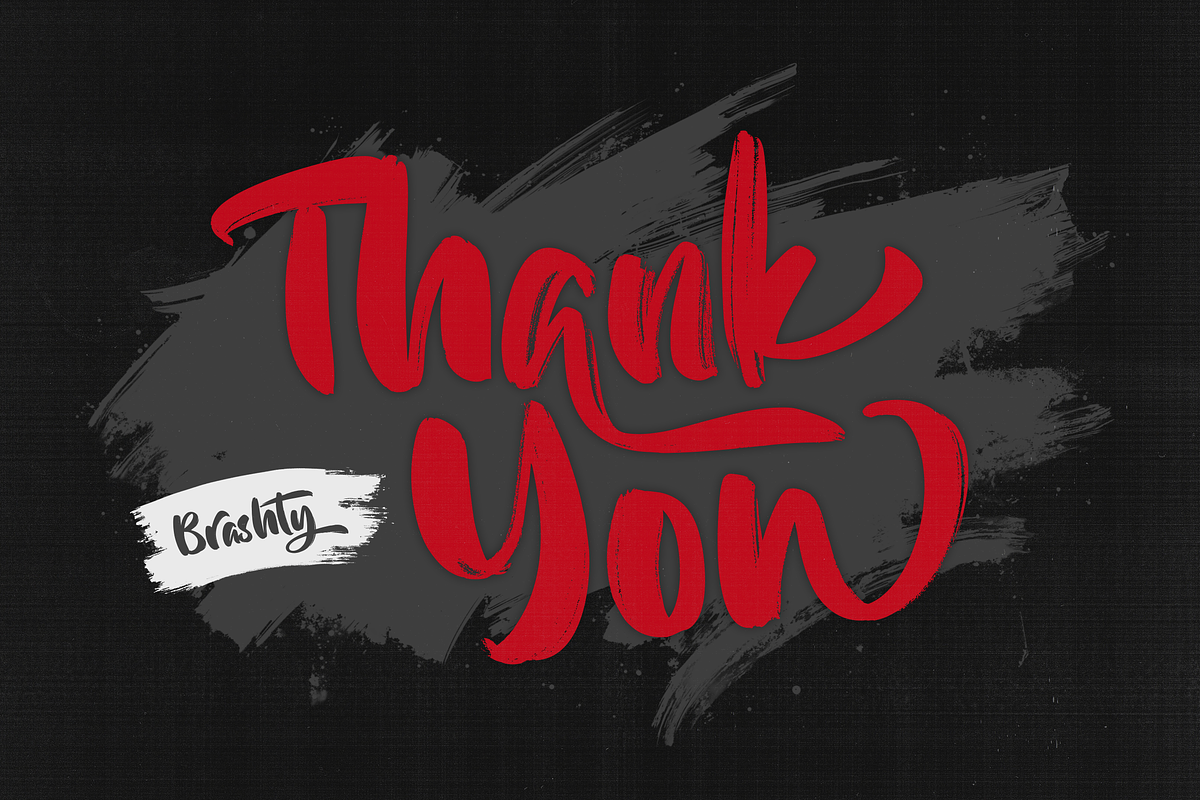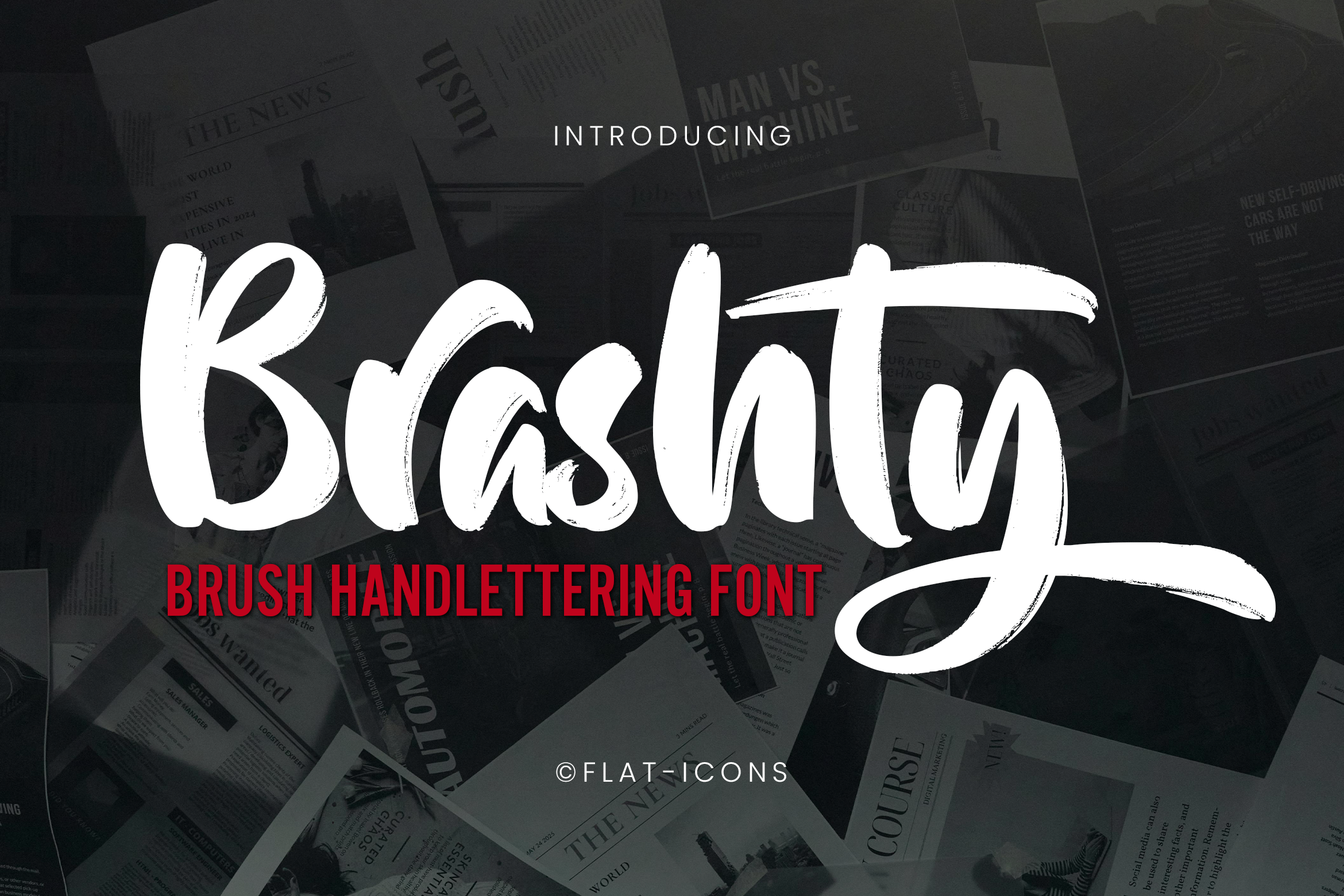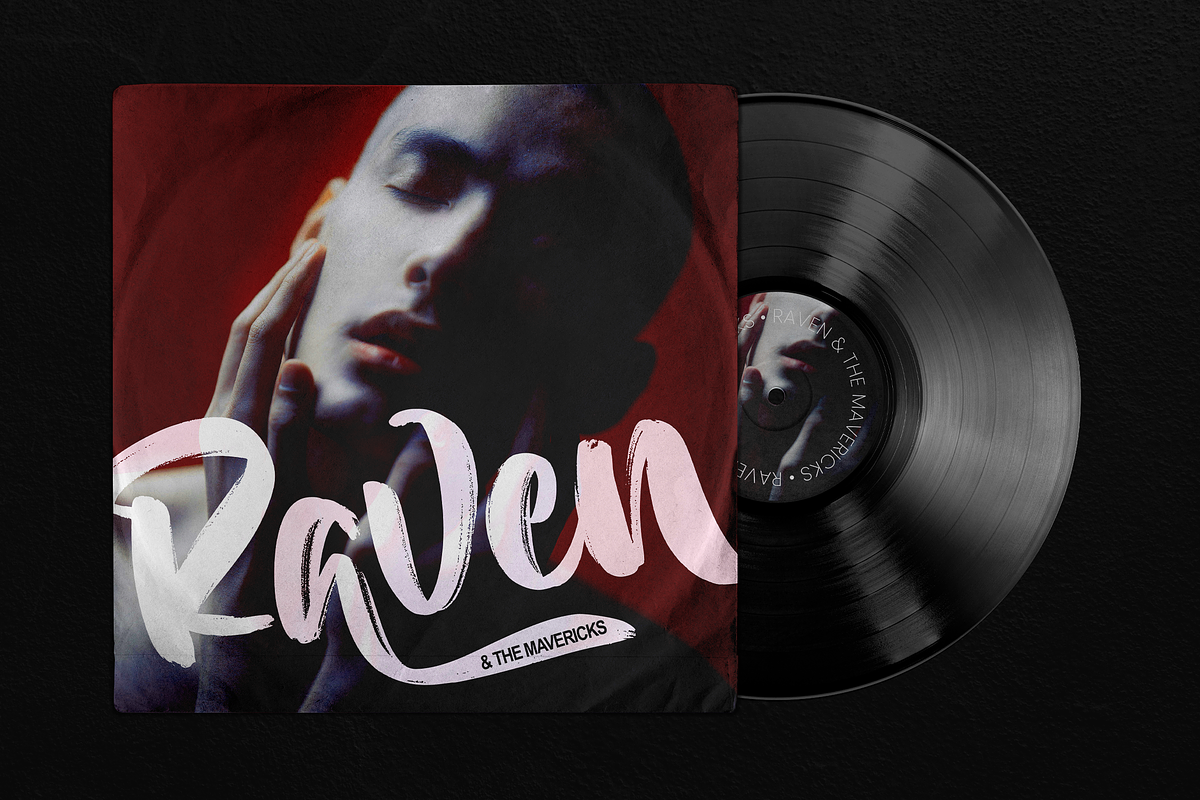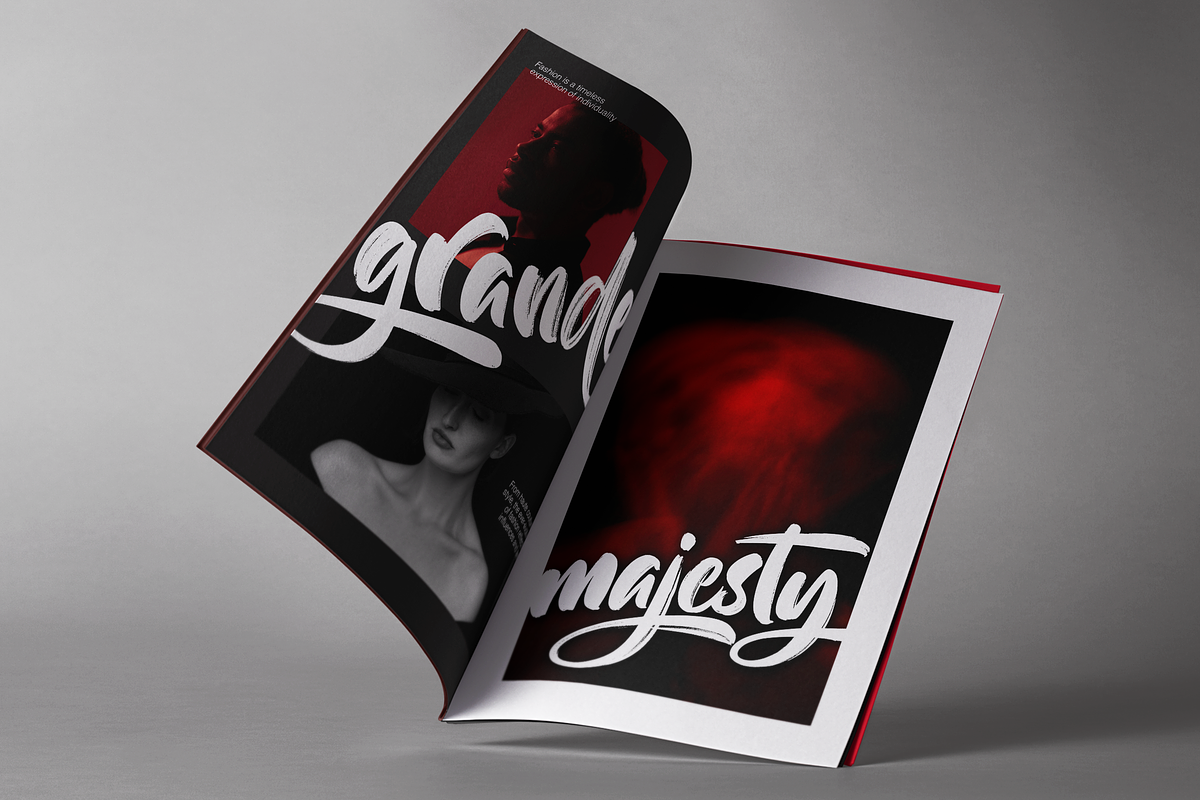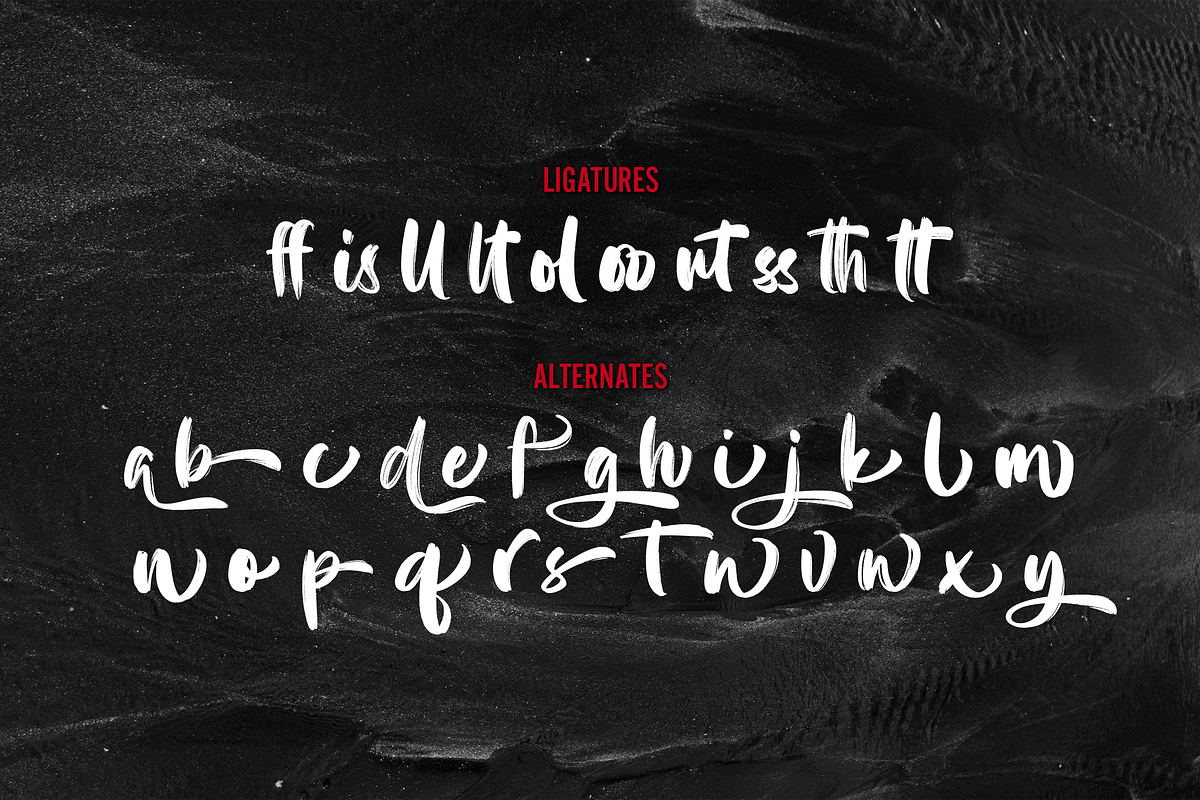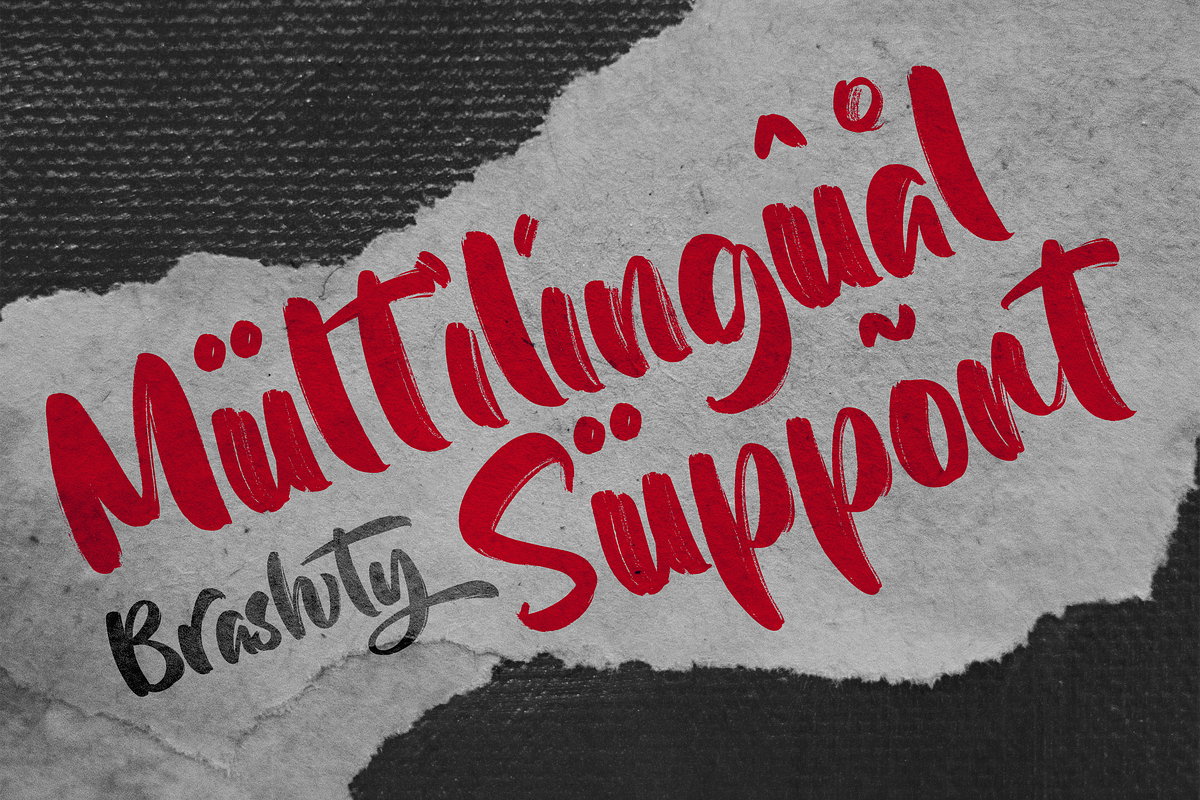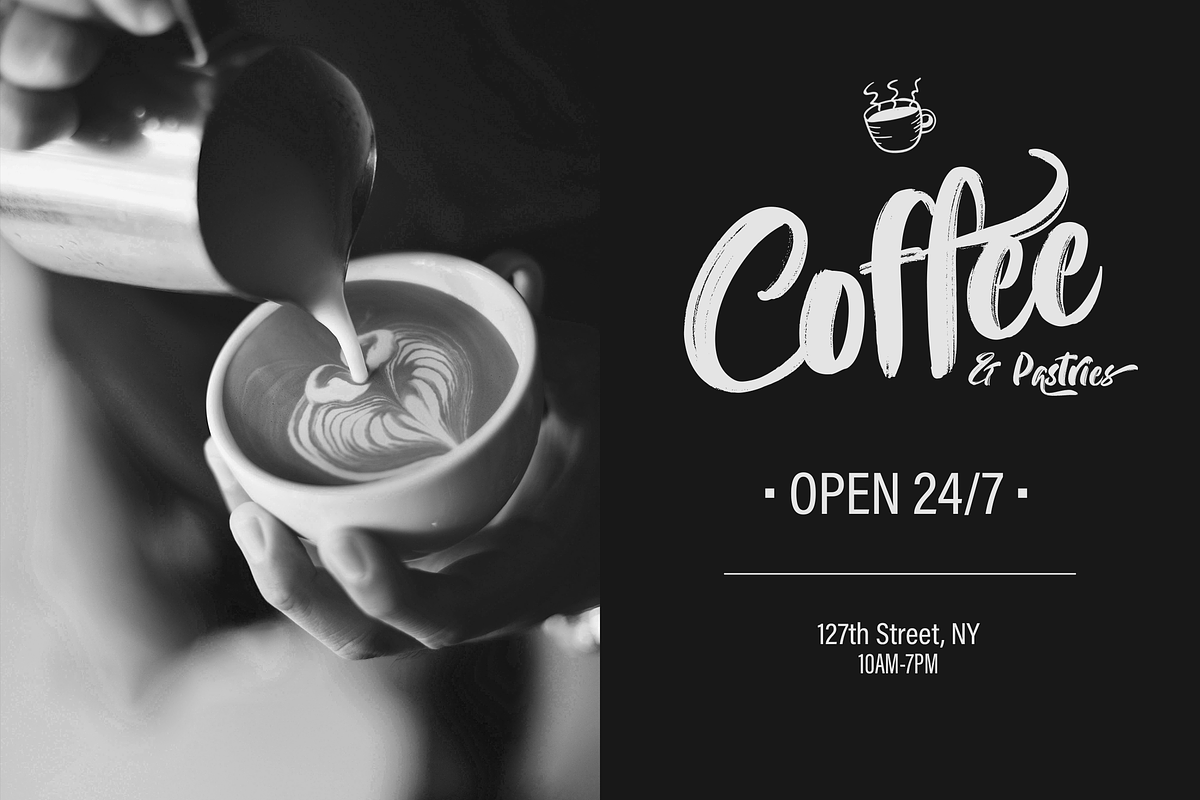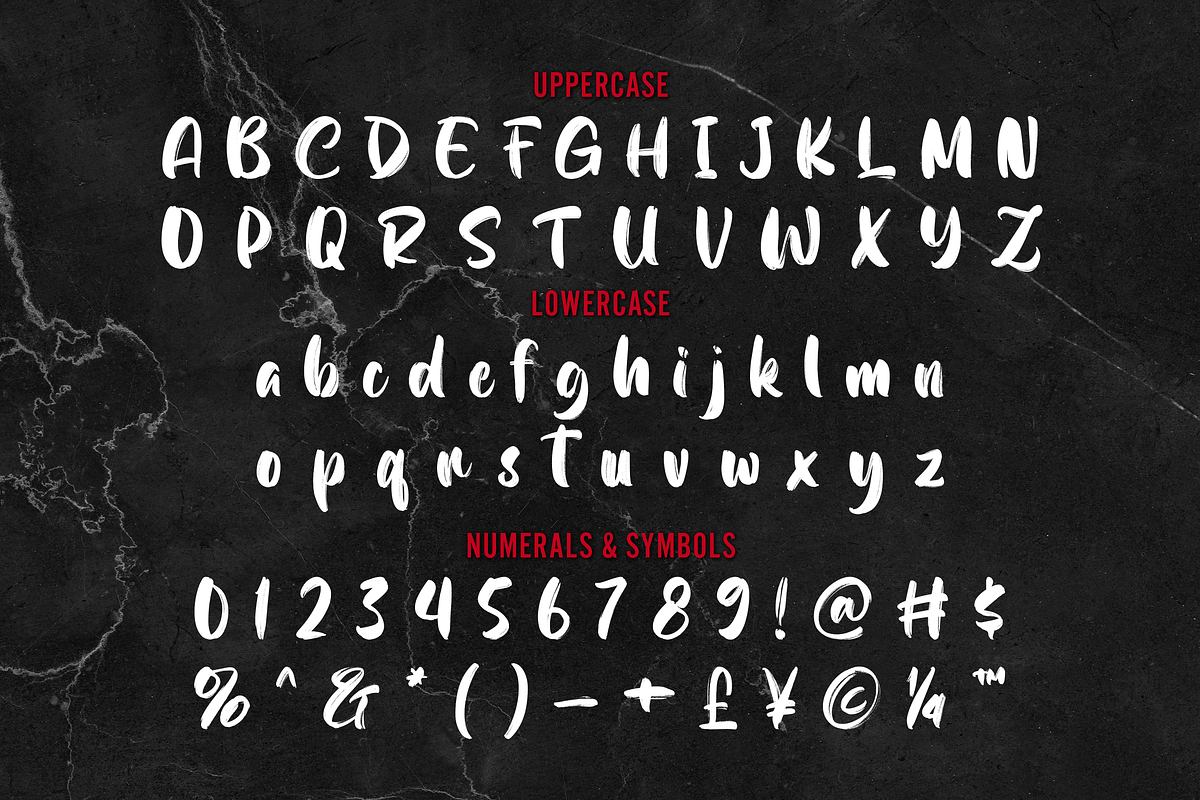
Brashty Brush Handlettering Font
Bring personality and flair to your projects with Brashty, a beautifully crafted brush-handlettering font.
Perfect for adding a personal touch to websites, social media, invitations, and more! Customizable in size and style, Brashty makes every design feel unique and expressive, giving your content an artistic, handcrafted look that stands out.
- Multilingual & Ligature Support
- Full sets of Punctuation and Numerals